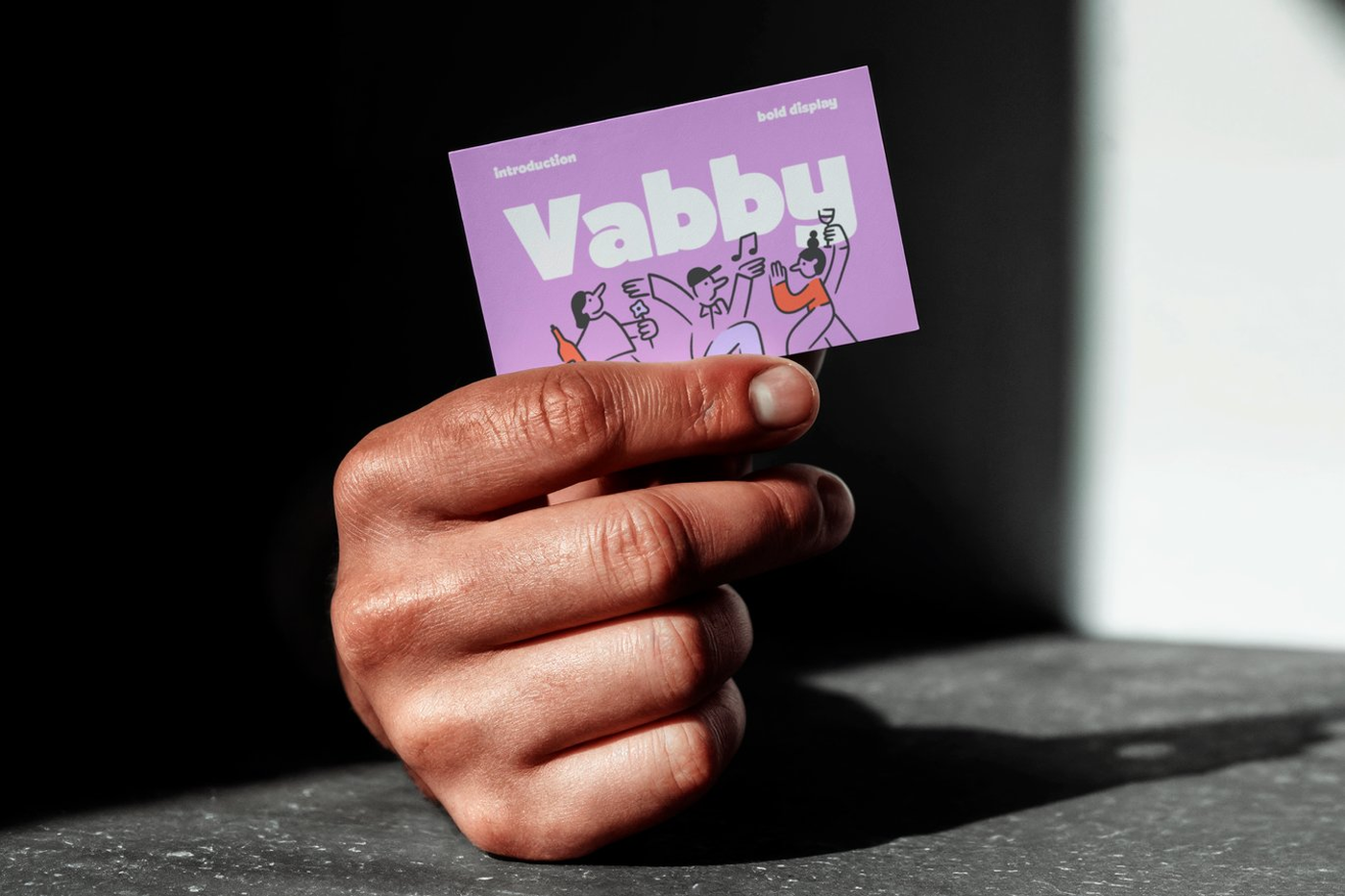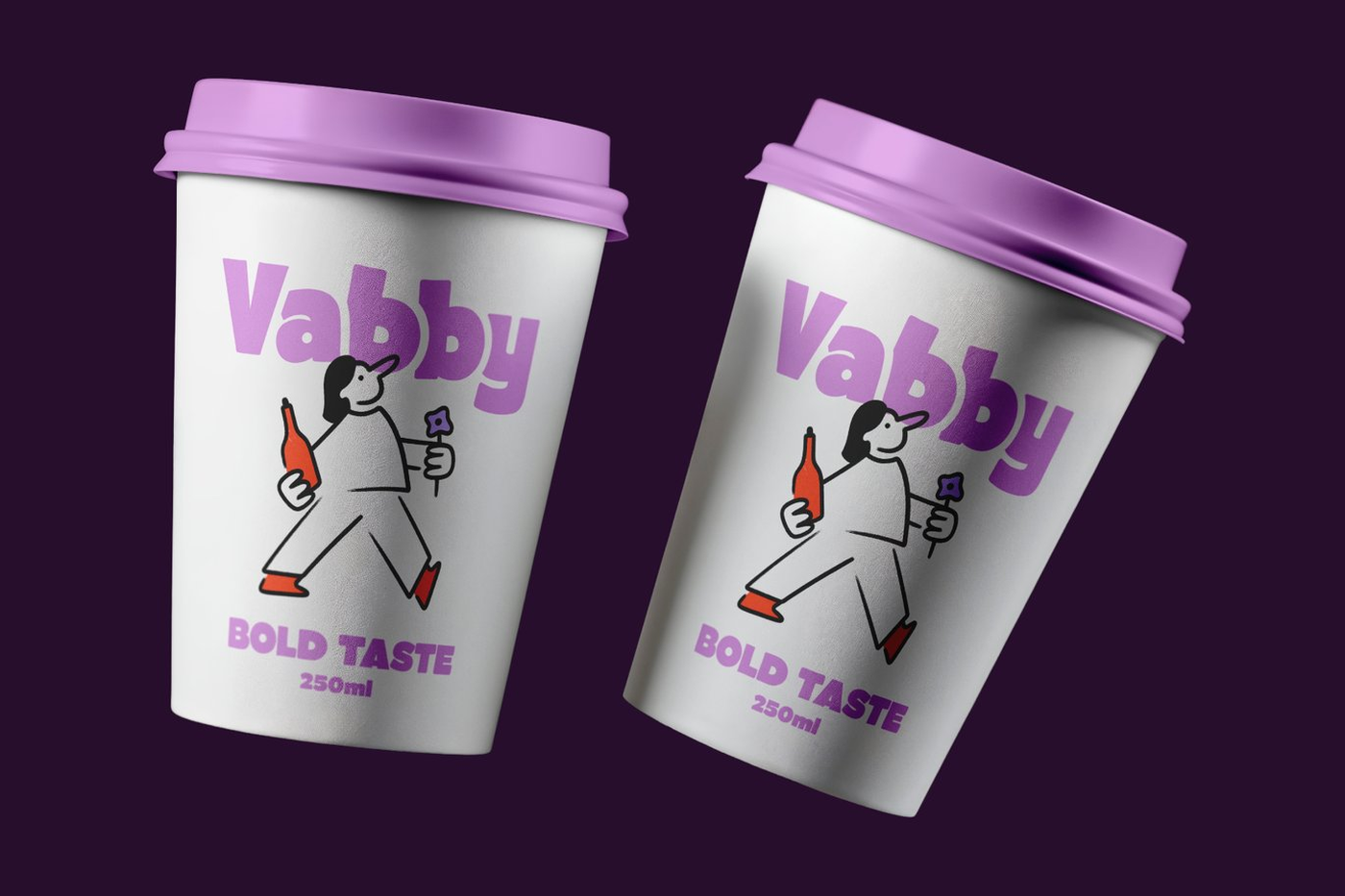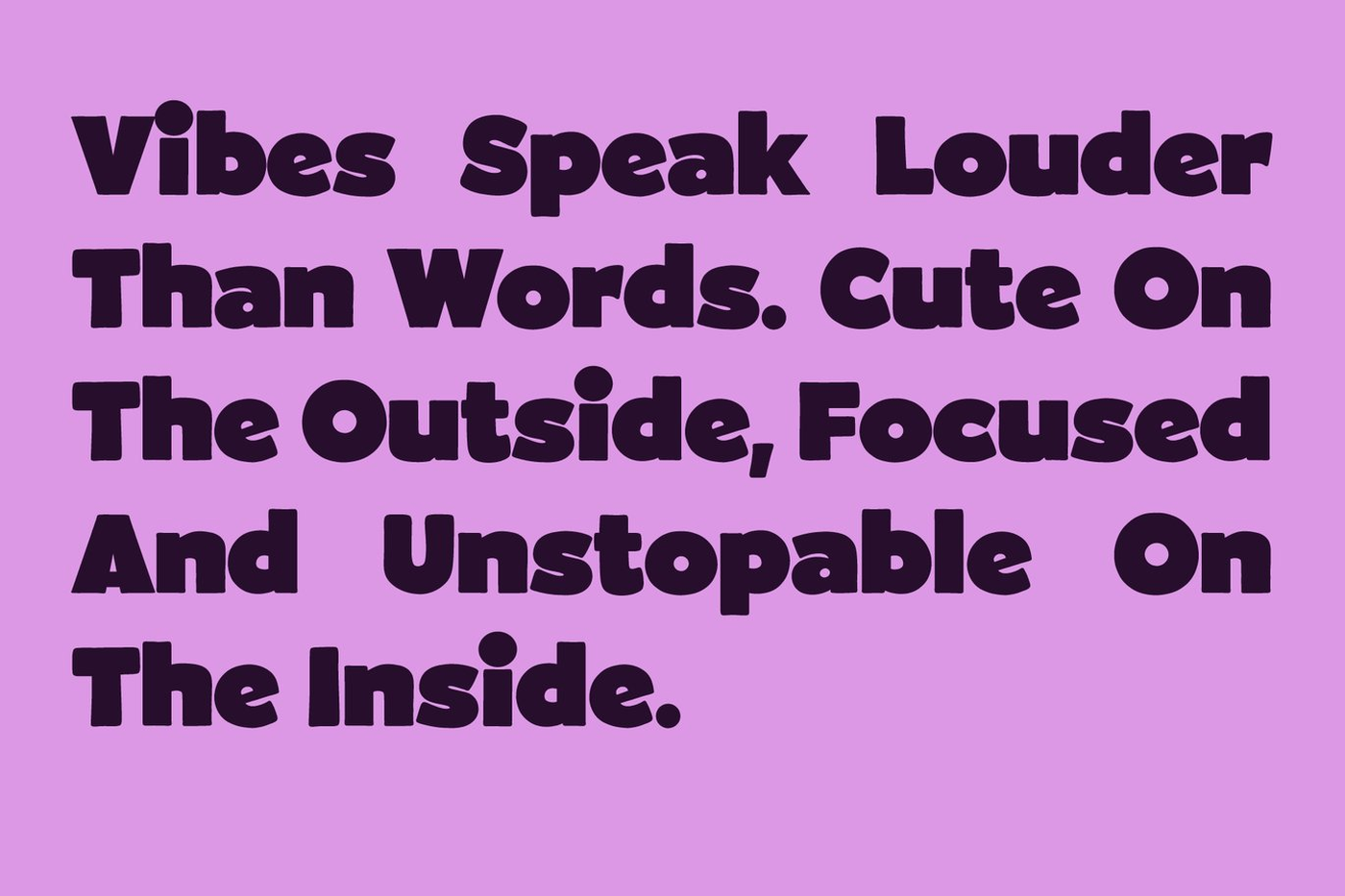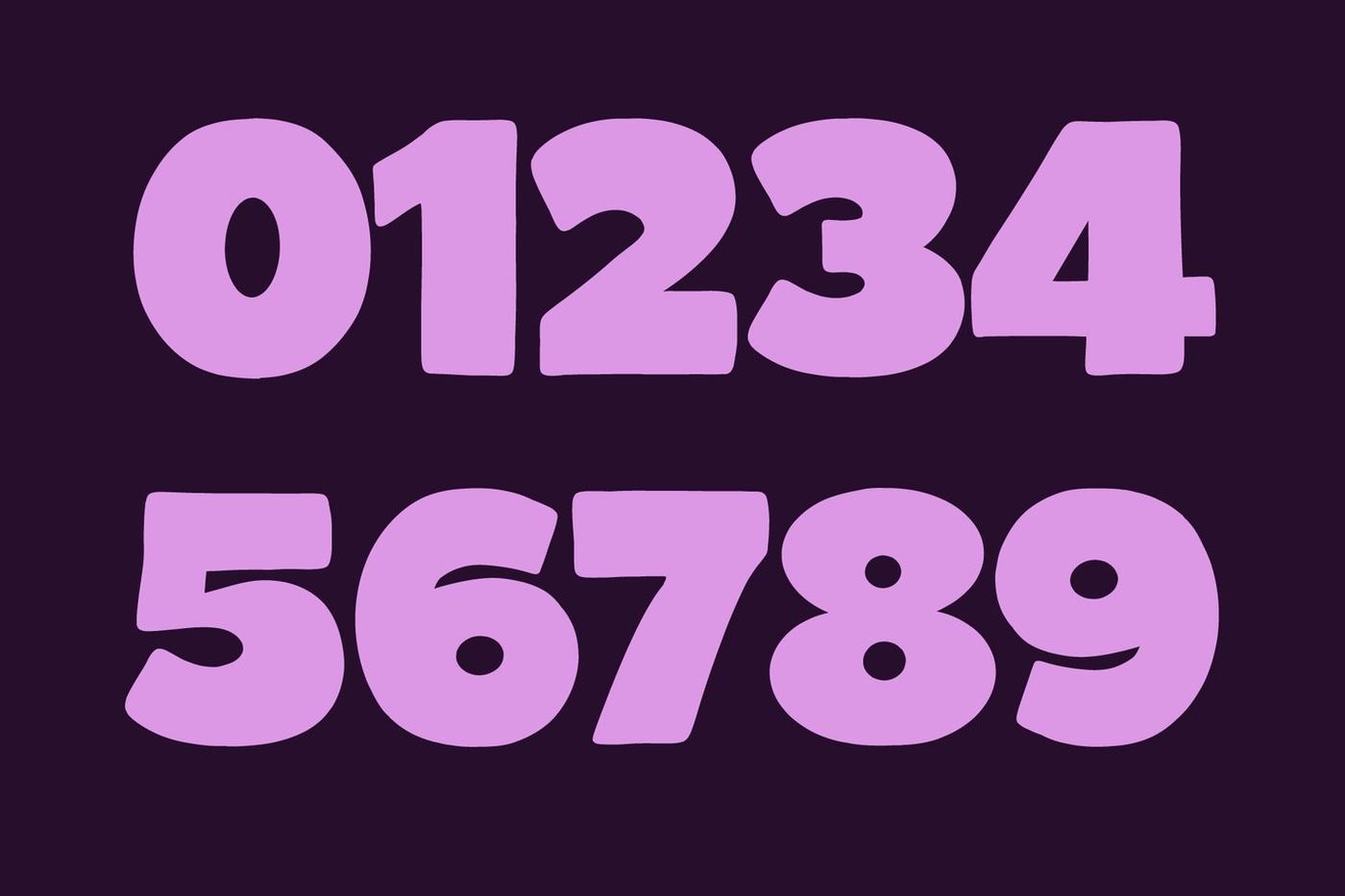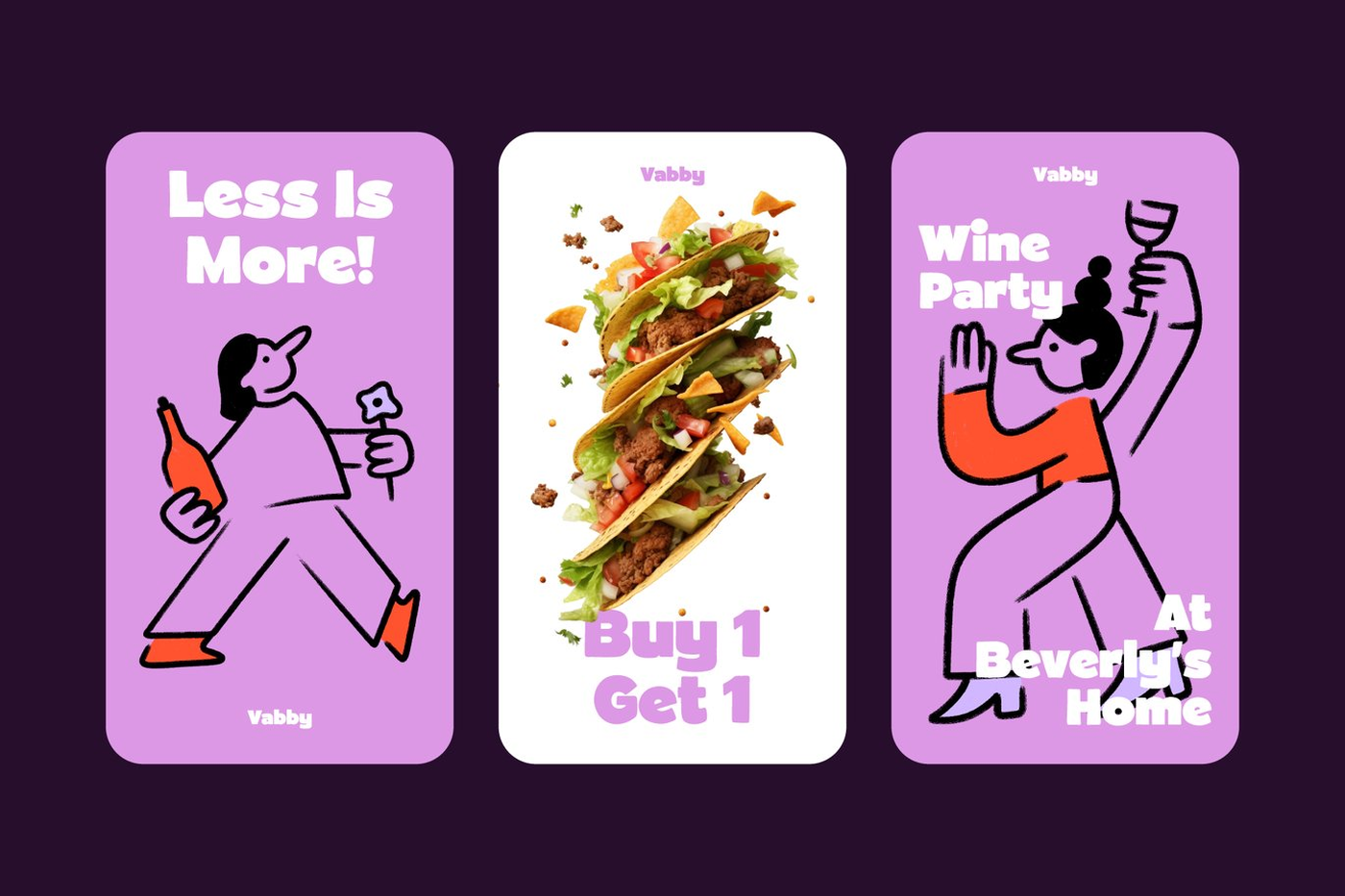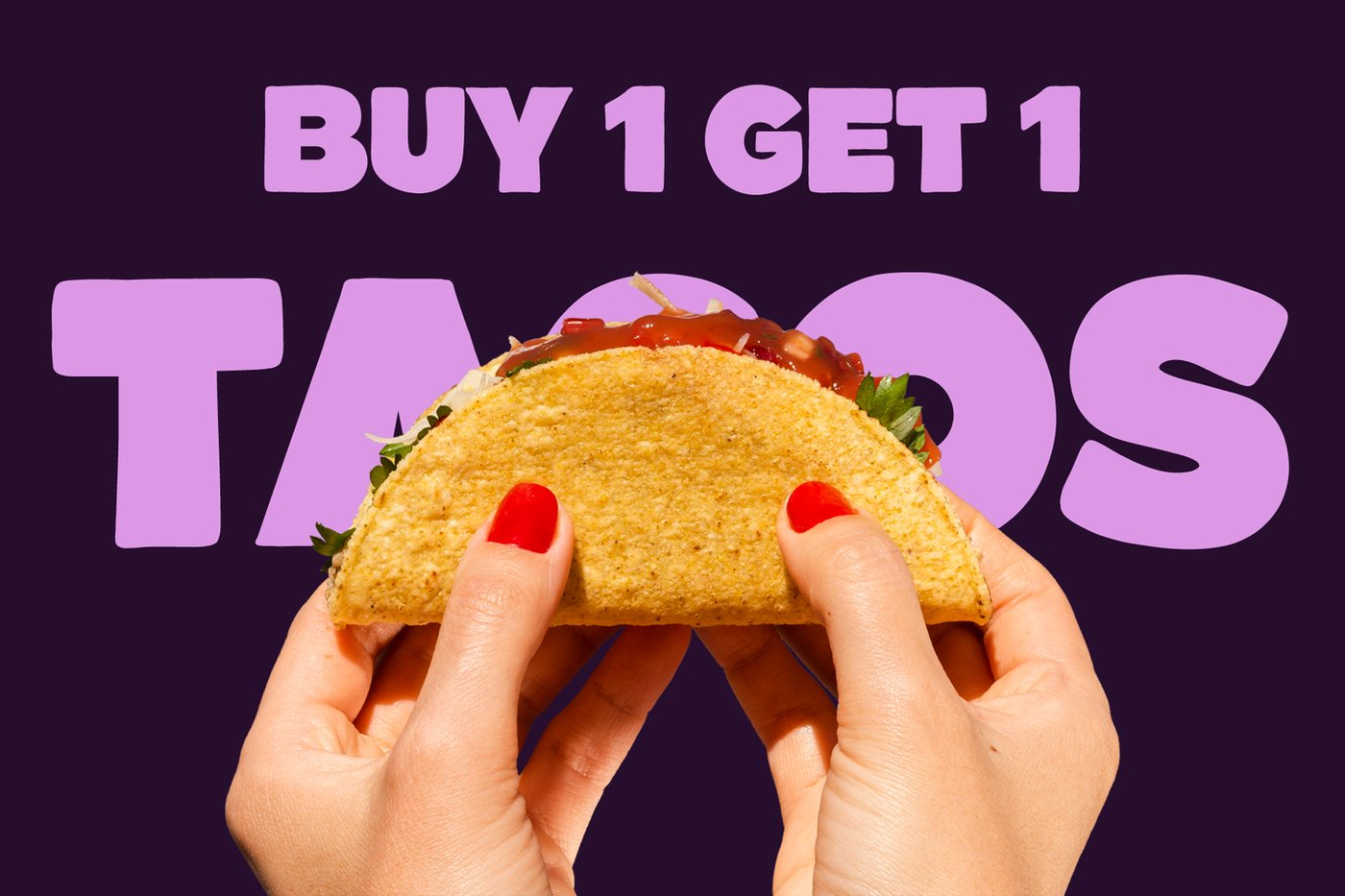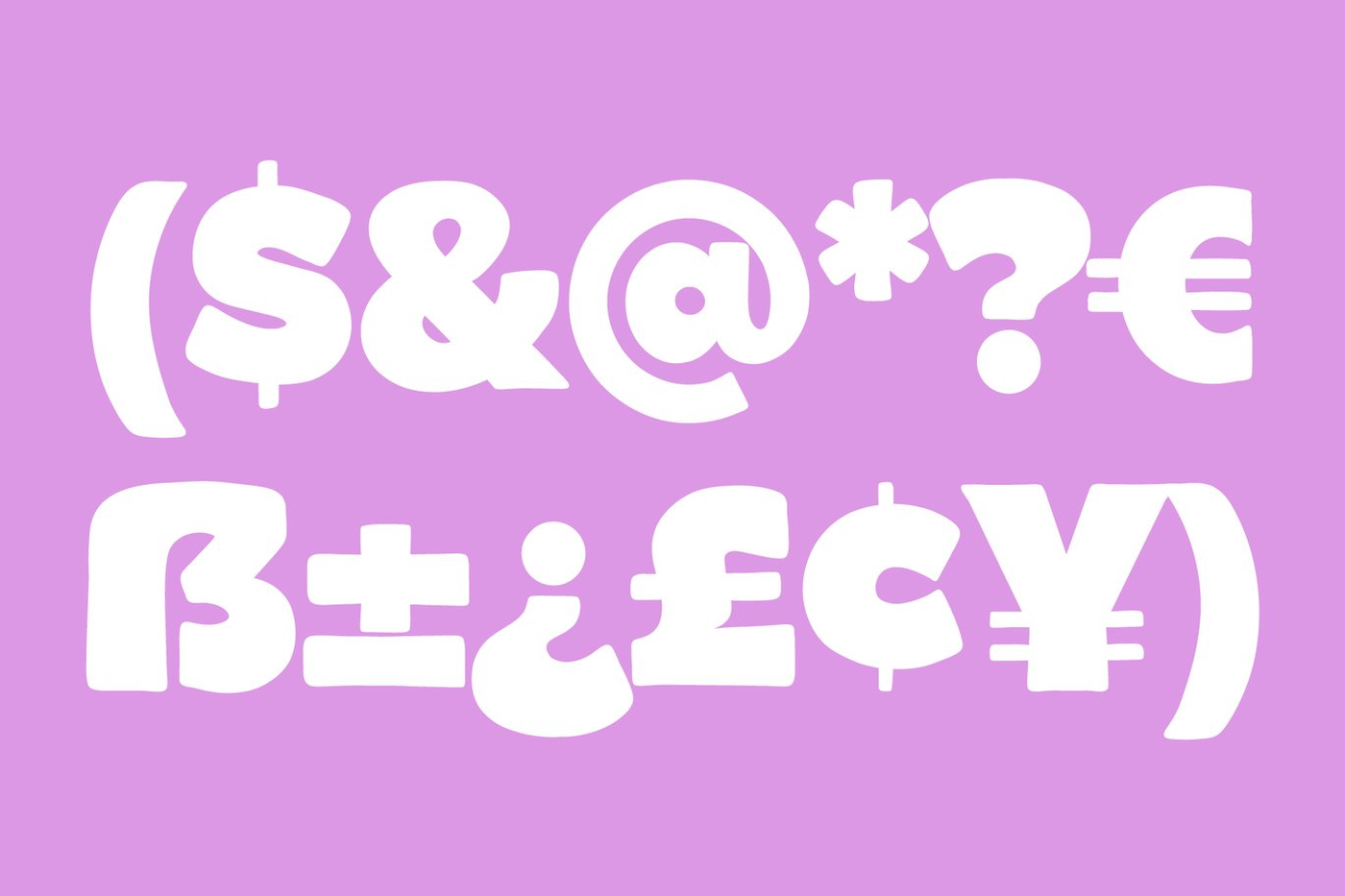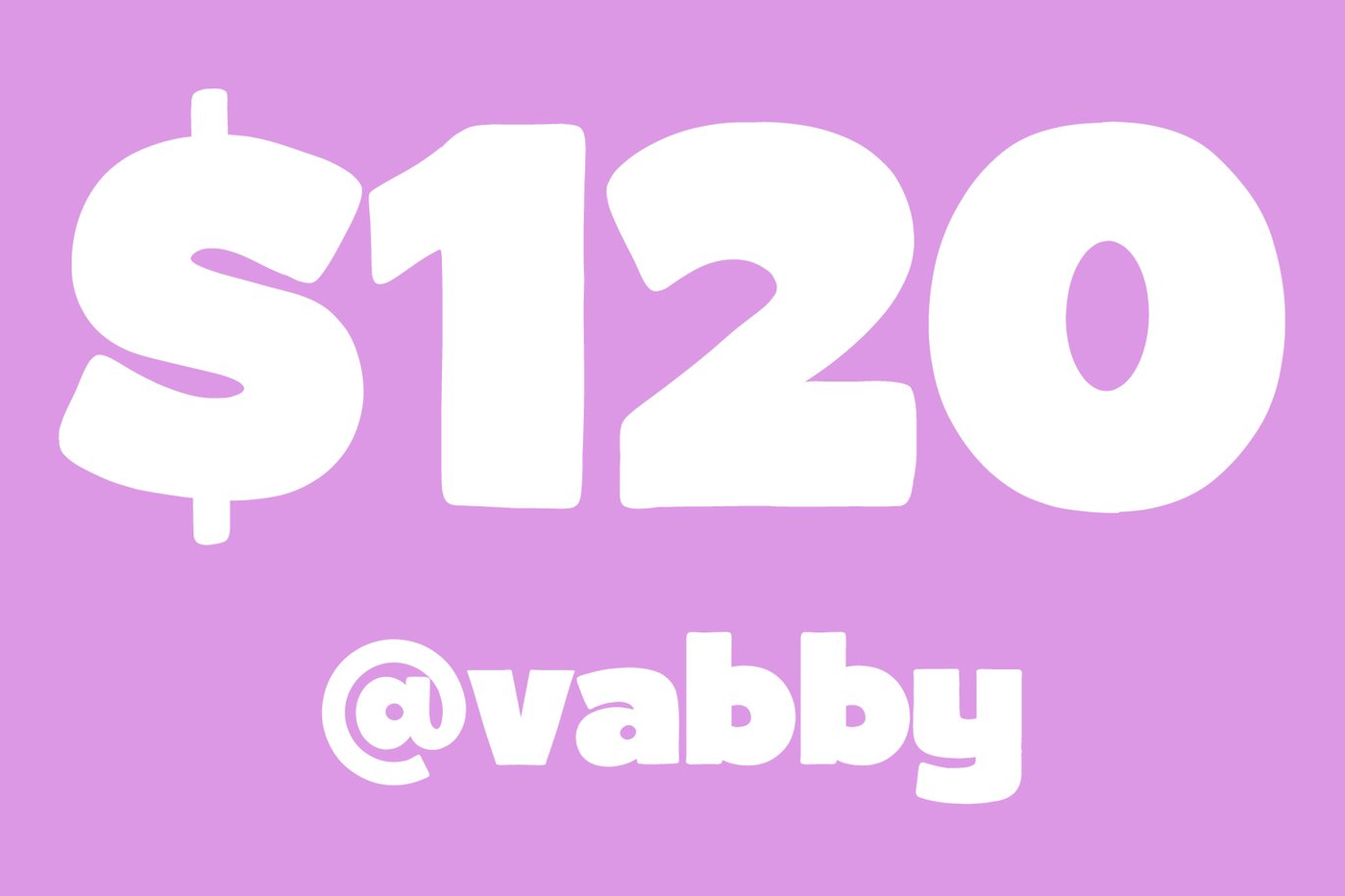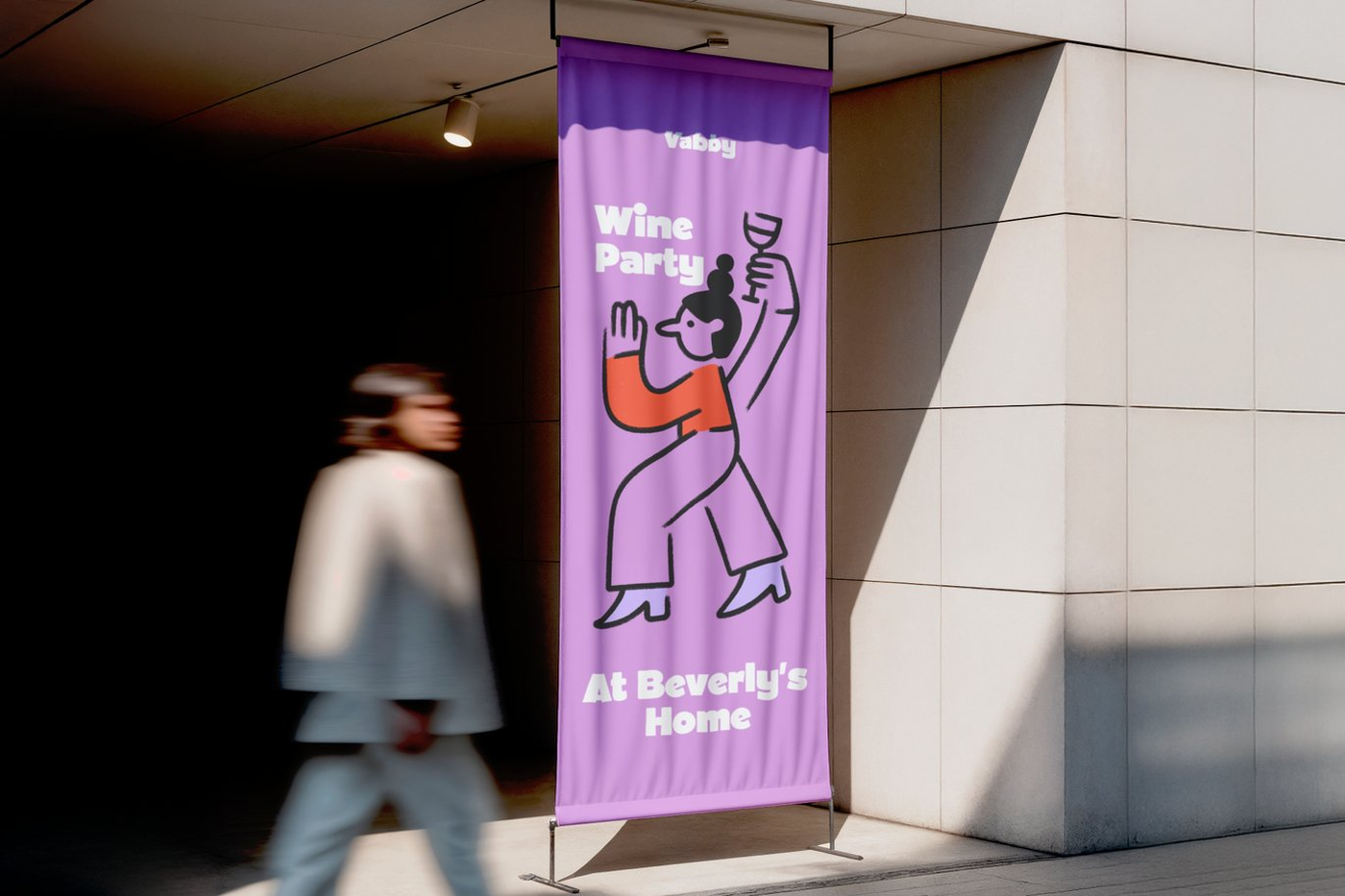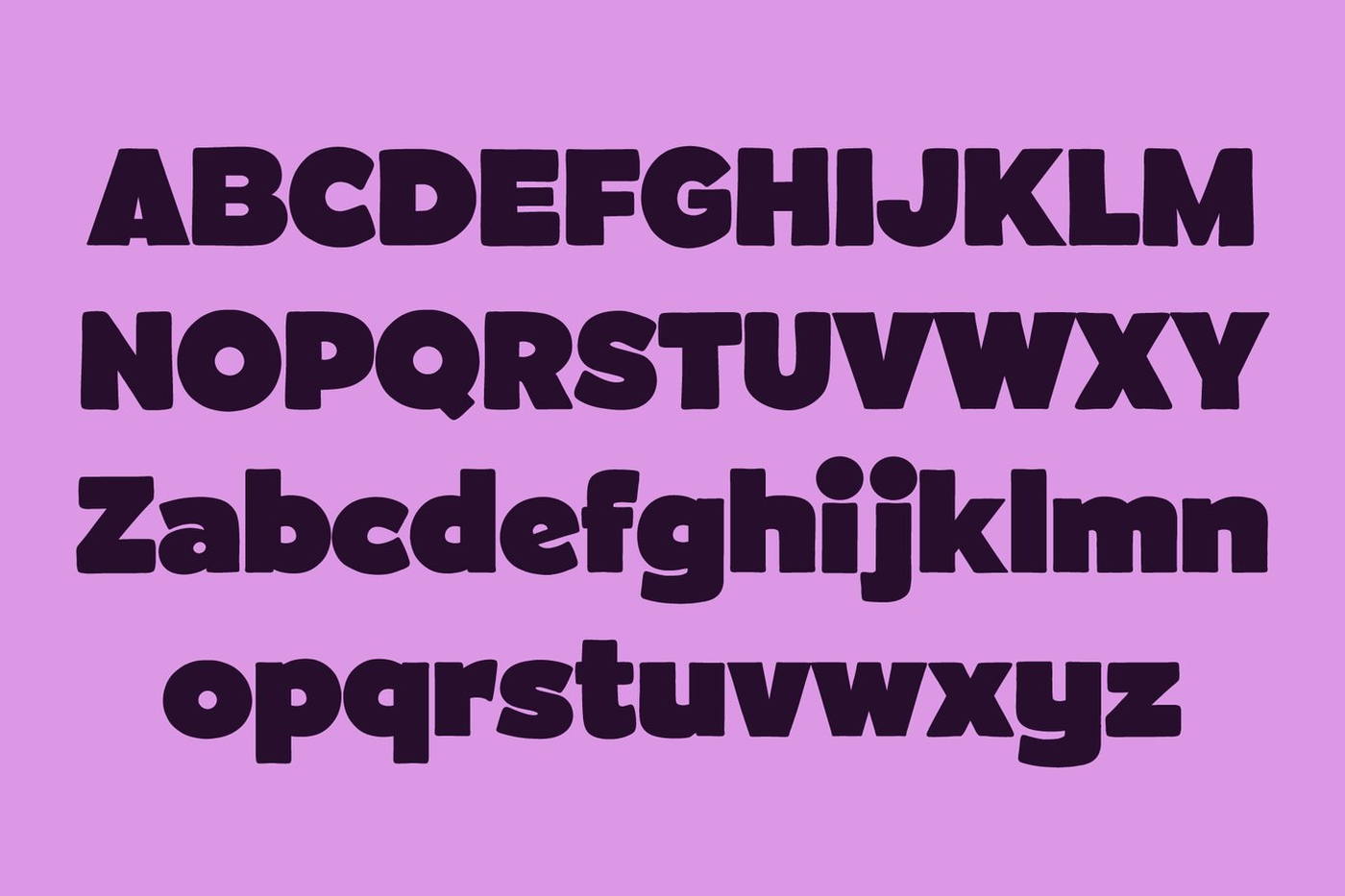
Vabby - Bold Display Font
Vabby is a bold and rounded display font crafted for modern branding and expressive visual communication. With its soft curves, chunky proportions, and friendly letterforms, Vabby delivers a confident yet approachable personality that works beautifully across both digital and print media. This font is perfect for food and beverage branding. Its strong readability and playful tone make it ideal for brands that want to appear bold, modern, and welcoming at the same time.
Designer: Portograph
Font: Vabby